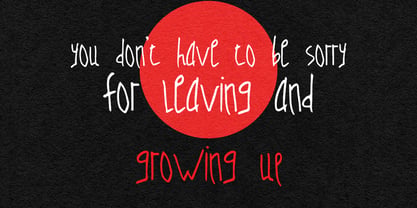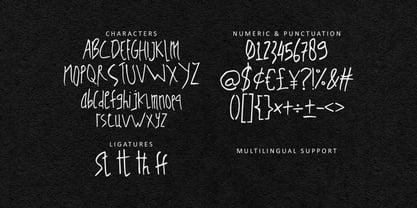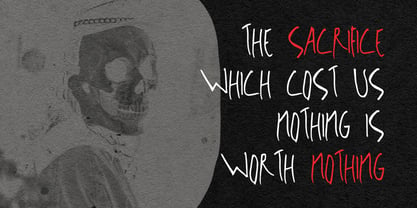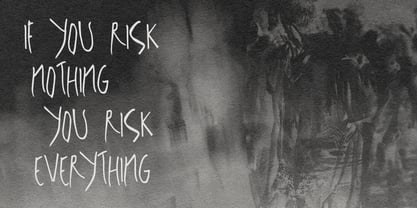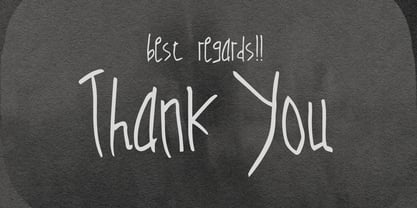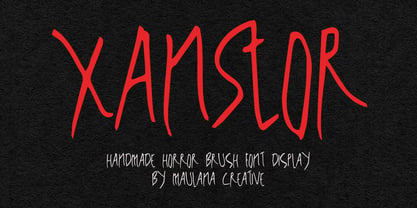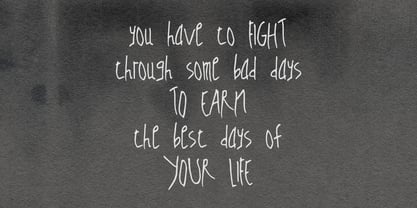
MC Xanstor
by Maulana Creative
The MC Xanstor Font Family was designed by Gilang Maulana and published by Maulana Creative. MC Xanstor contains 1 styles. More about this family
Xanstor is a horror handmade brush font. Fun character with a bit of ligatures. To give you an extra creative work. Xanstor font support multilingual more than 100+ language. This font is good for logo design, Social media, Movie Titles, Books Titles, a short text even a long text letter and good for your secondary text font with sans or serif. Make a stunning work with Xanstor font.
Designers: Gilang Maulana
Foundry: Maulana Creative